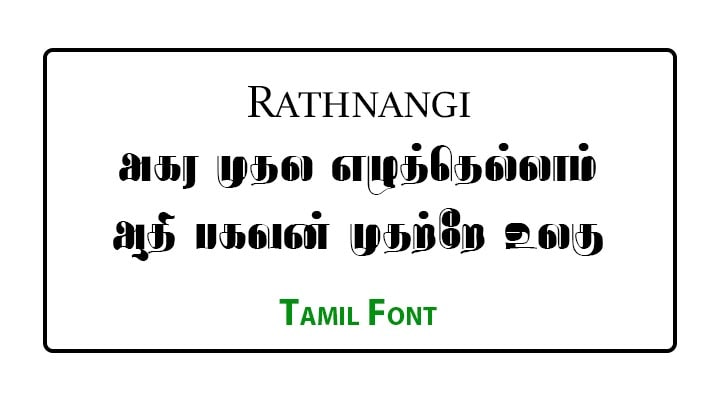
Rathnangi Tamil Font Free Download. Rathnangi is one of the Tamil Stylish Font. Specially used in publications. Here you can download Font and Keyboard Layout for Free. This font is widely used by Tamil Nadu and Sri Lankan Tamil Peoples. The following font was design and generated by by Fontograpgher 3.5.
| Font Name | Rathnangi Regular |
| Language | Tamil |